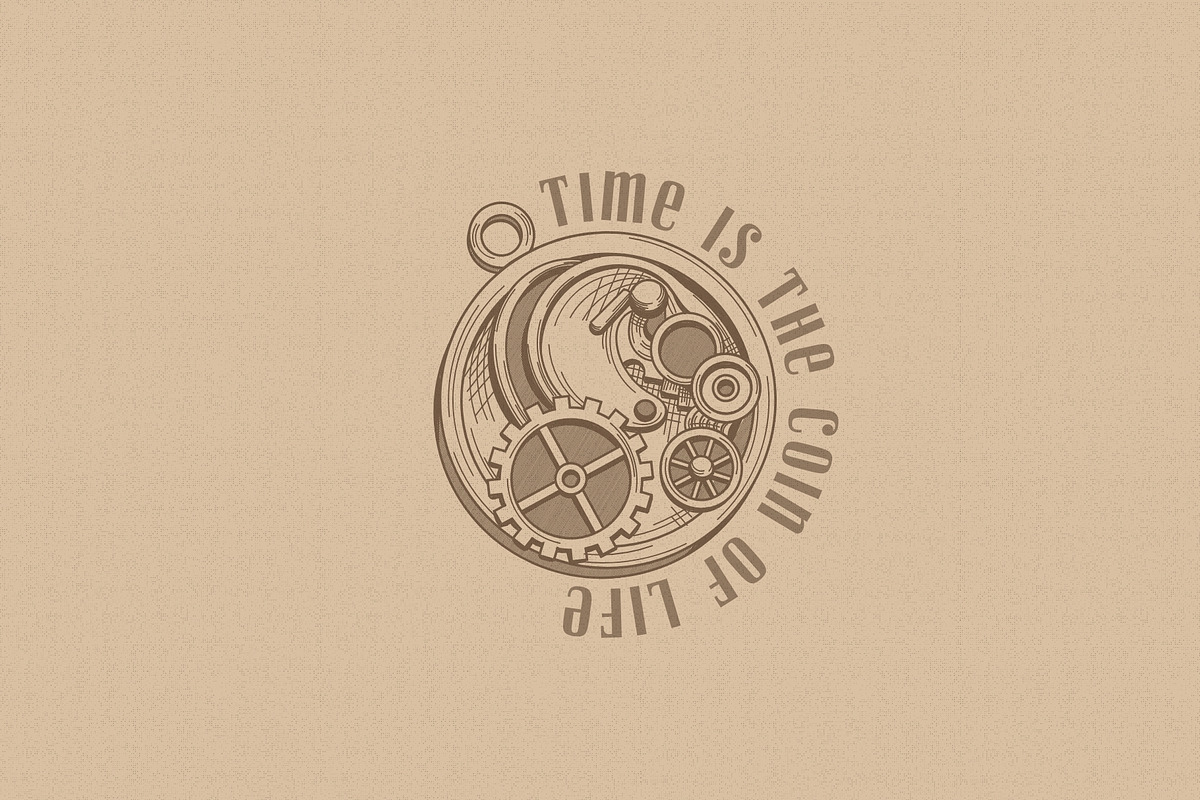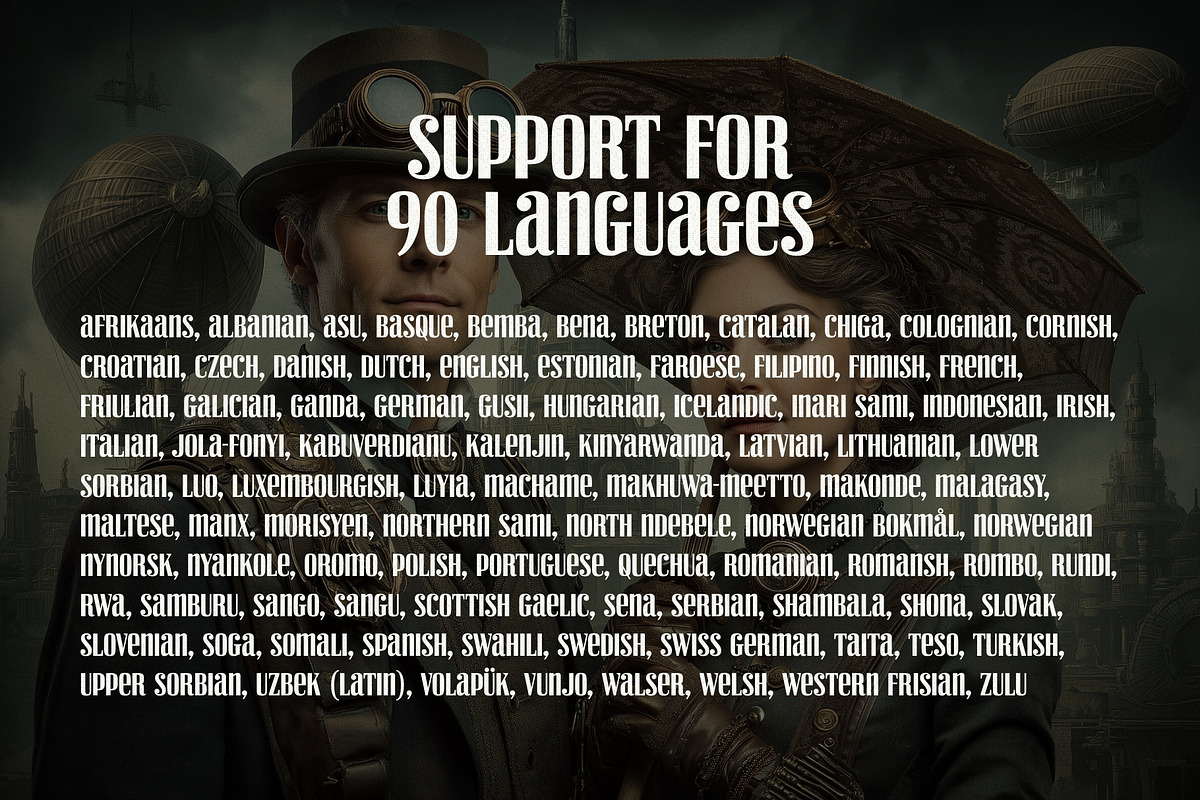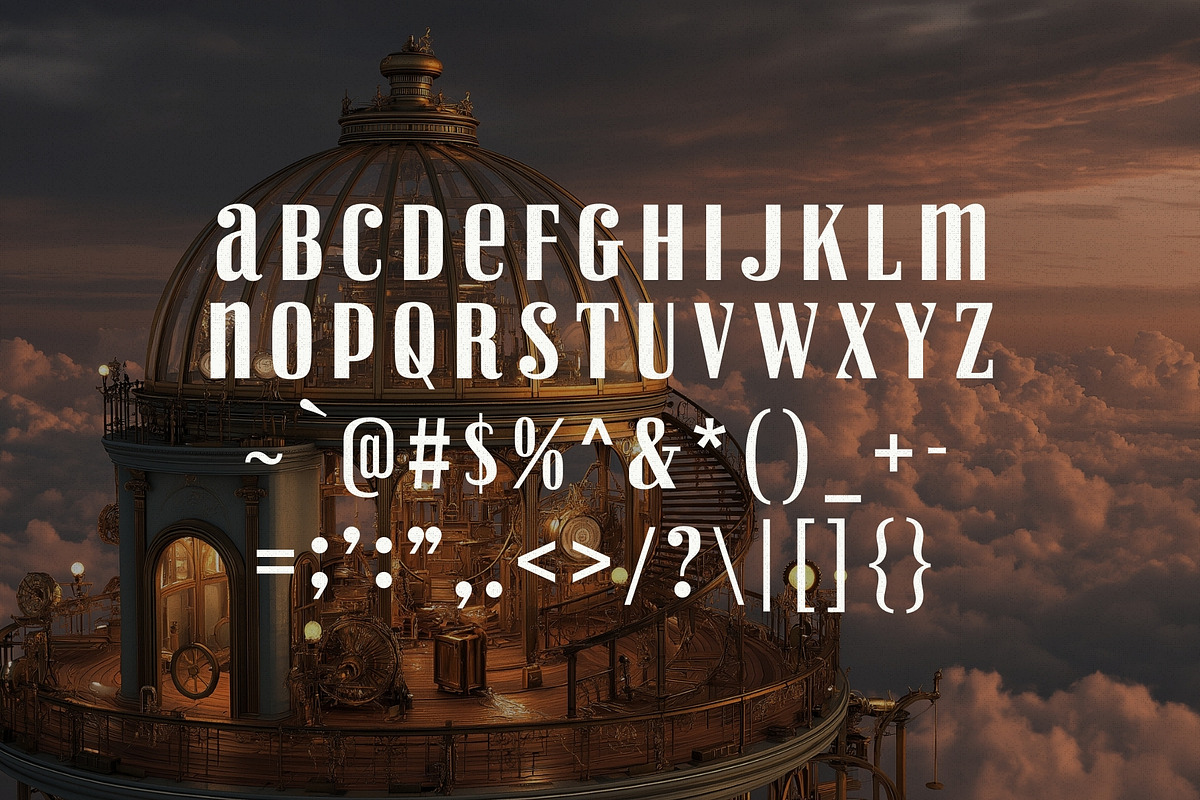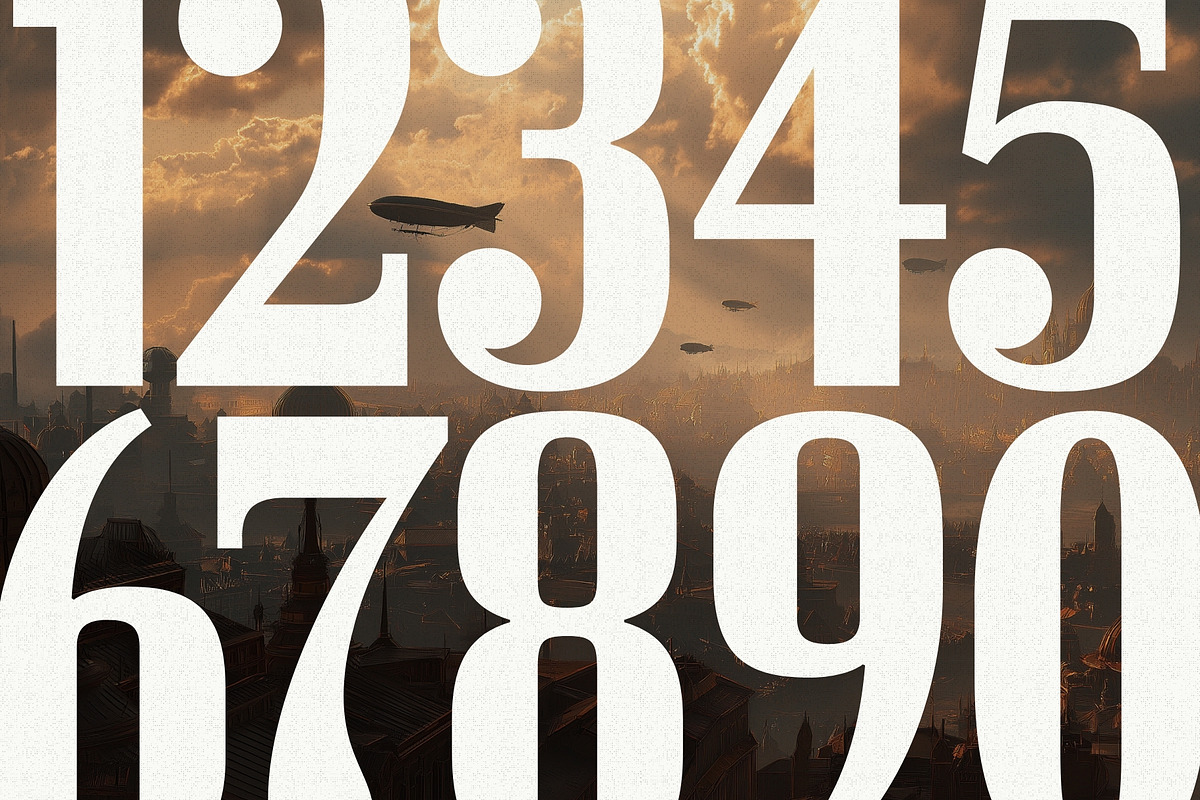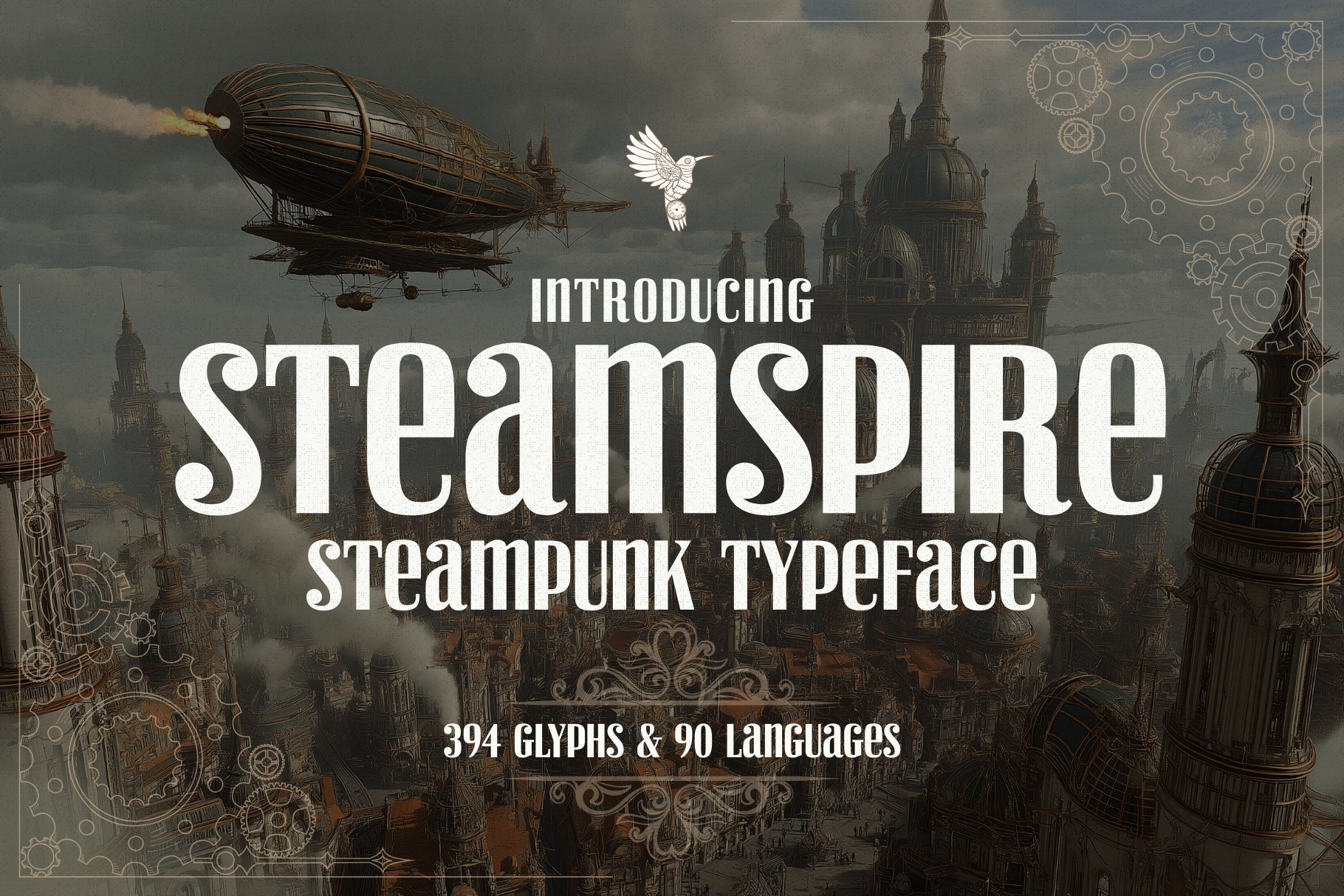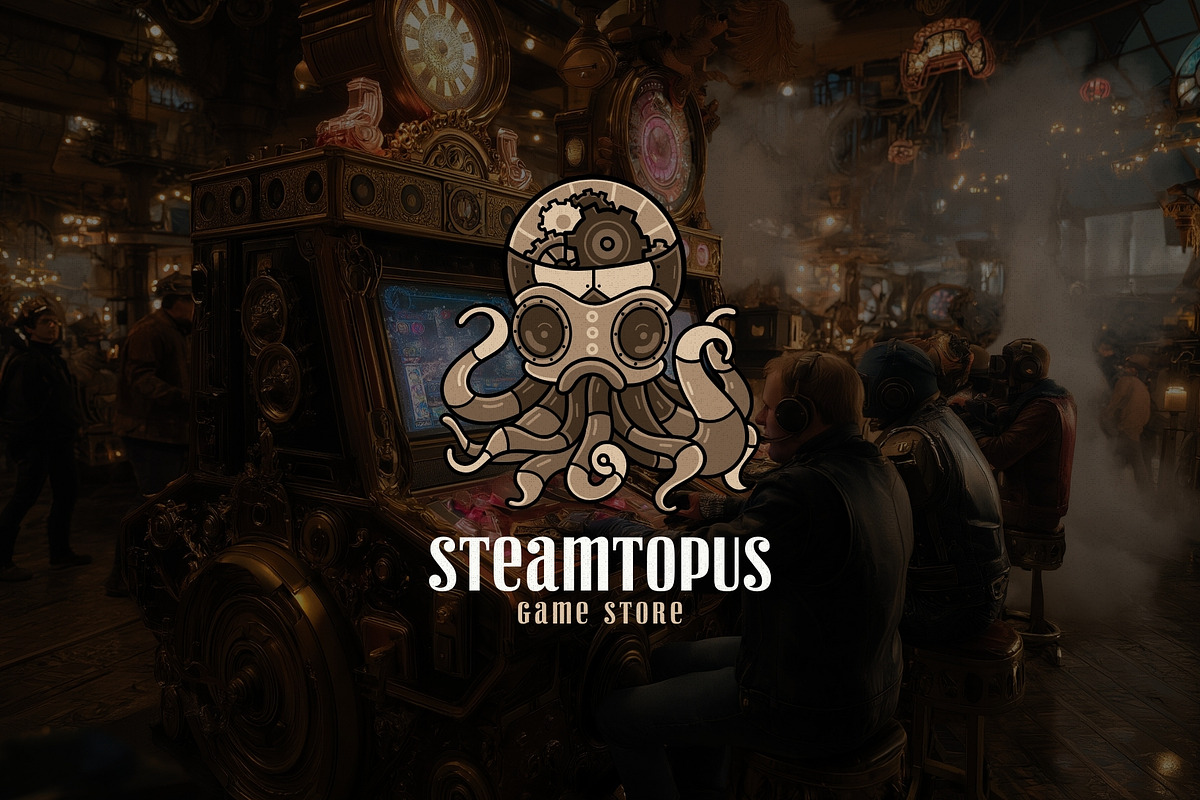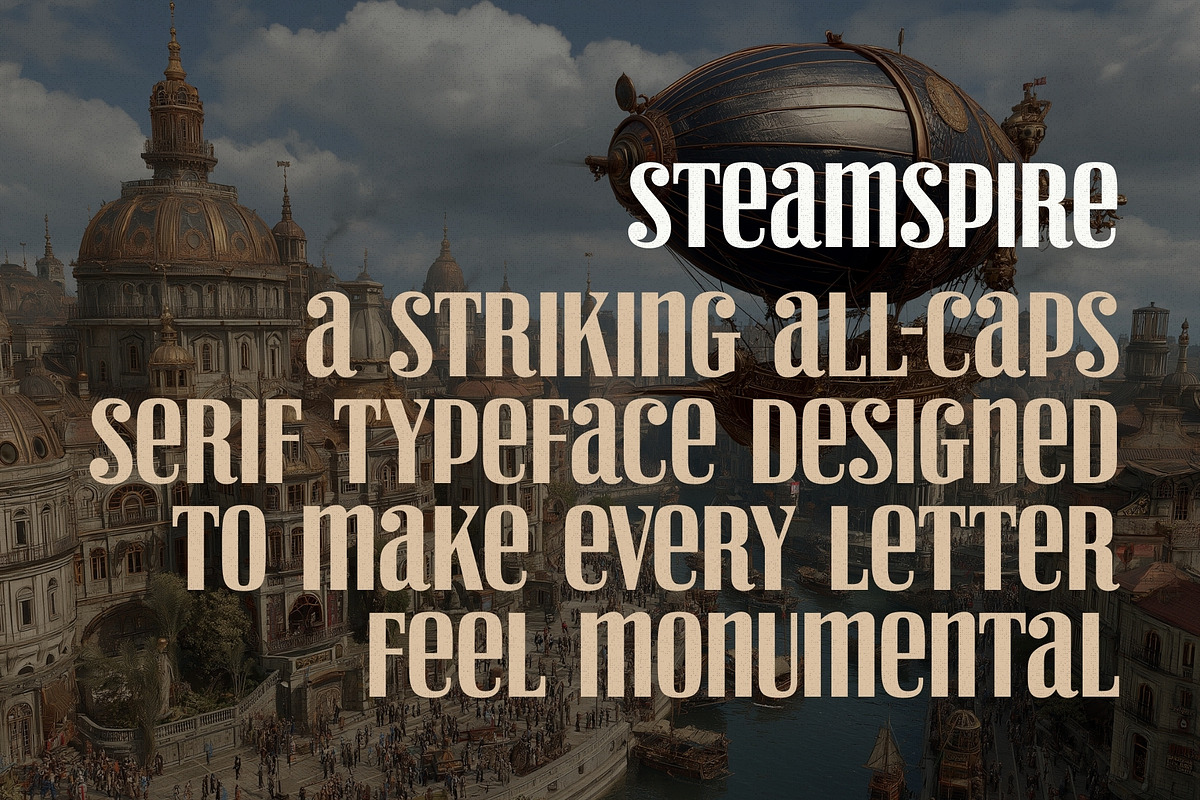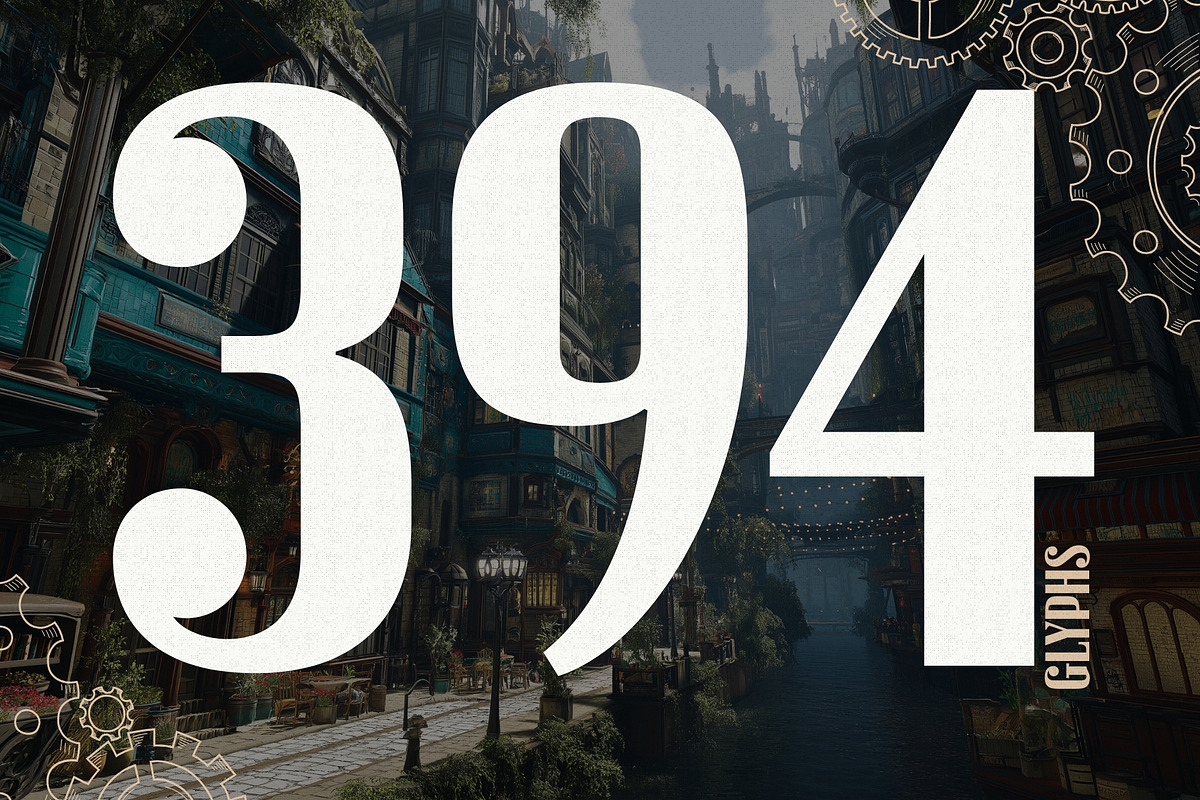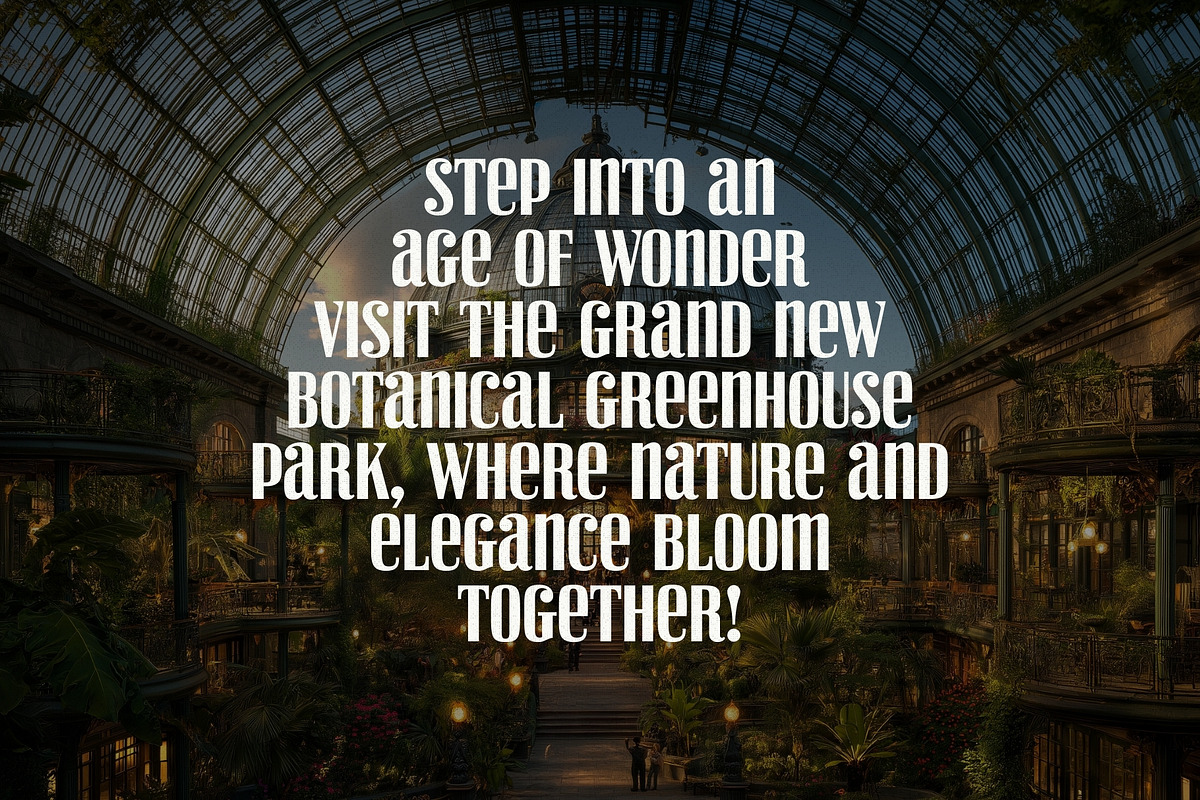
Steamspire - Steampunk Font
Step into a world where elegance meets power with Steamspire, a striking all-caps serif typeface designed to make every letter feel monumental. Inspired by steampunk aesthetics yet versatile beyond its origins, Steamspire exudes sophistication, authority, and professionalism. With 394 meticulously crafted glyphs and support for 90 languages, this font is perfect for designers, typographers, and creatives who demand precision and style.
Don’t let the steampunk influence fool you, Steamspire effortlessly adapts to a wide range of uses. Its bold, structured forms make it ideal for currency designs, diplomas, certificates, logos, branding, editorial layouts, and more. Whether you want to channel a sense of old-money prestige, create official documents, or make your projects feel timeless and refined, Steamspire delivers unmatched clarity and impact.
Elevate your designs with a typeface that combines the mechanical grandeur of steampunk with the professional elegance of classic serif typography. Steamspire isn’t just a font, it’s a statement.